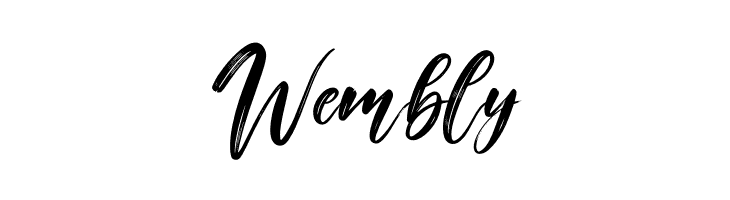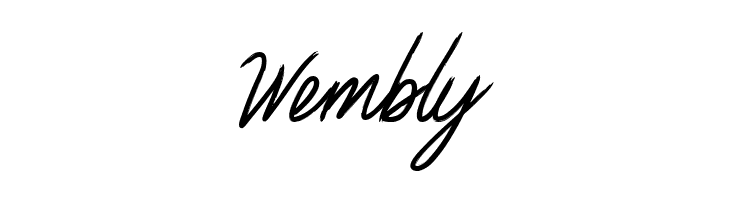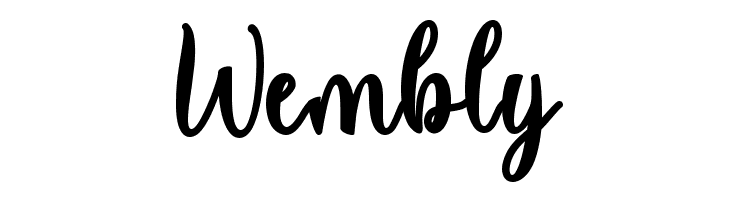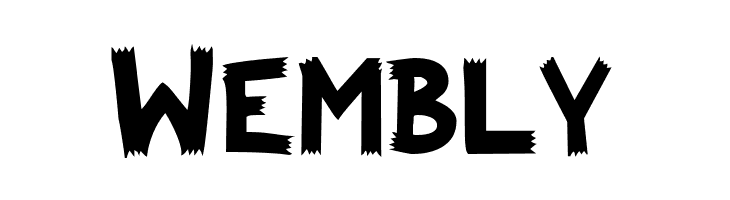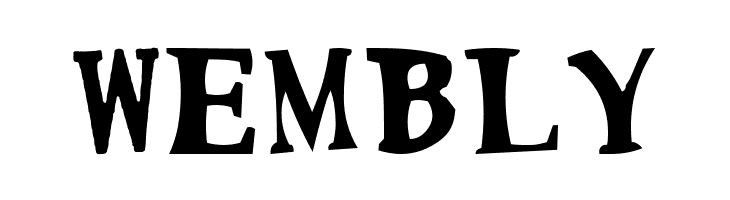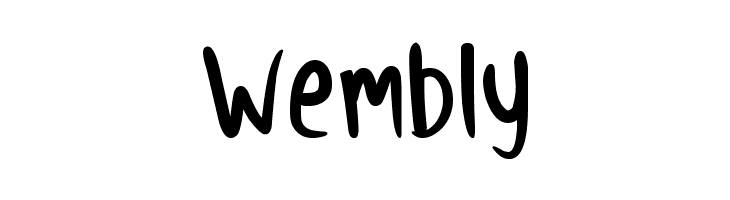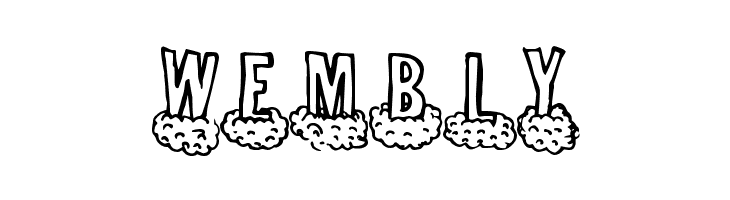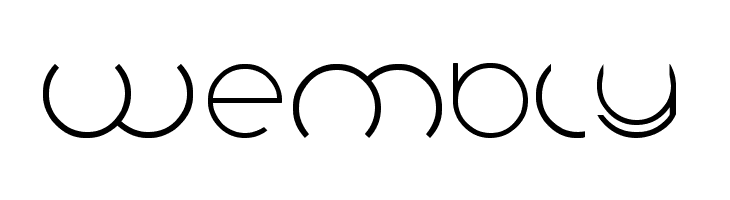
Casual, brush-style script with playful, rounded forms.
Bold, groovy script font with rounded, connected letters.
Ornate script font with festive, swirling embellishments.
Handwritten monoline script with a festive feel.
A decorative, high-contrast handwritten script with ornate flourishes.
Whimsical, decorative script with bold swashes and heart accents.
A dynamic and fluid script font with elegant cursive strokes and smooth connections.
A dynamic, graffiti-inspired font with expressive strokes and playful angles.
A bold, playful font with chunky, geometric letters.
A playful, handwritten font with a bold and lively style.
A bold, expressive script font with fluid, interconnected strokes.
A flowing, cursive font with elegant, interconnected characters.
A playful, bold font with uppercase letters in hand-drawn circles.
A modern font with circular motifs and a sleek, minimalistic design.
A dynamic and fluid script font with a modern, elegant style.
A fluid and elegant script font with dynamic cursive letterforms.
A playful, handwritten script font with elegant curves and high contrast.
A bold, Gothic-inspired font with sharp, angular edges and a vintage feel.
A classic Blackletter font with intricate detailing and dramatic flourishes.
A bold, textured, hand-drawn font with an energetic and artistic style.
A dynamic, handwritten-style font with bold, slanted characters.
A bold, vintage-style font with sharp, angular serifs and unique cut-out details.
Hand-drawn decorative font with clothing illustrations as characters.
A playful, cloud-themed decorative font with bold, outlined letters.
A bold, rugged font with thick, uneven strokes and a handcrafted feel.
A bold, italicized font with a modern and sleek design.
A modern, geometric typeface with bold, uniform strokes and clean lines.